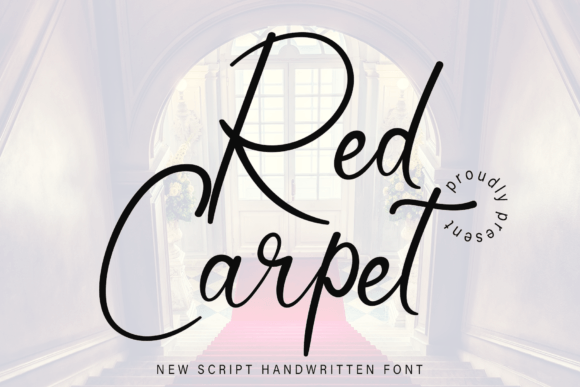
Journey into the realm of exquisite typography with Red Carpet Font, the script font designed to ignite romance and leave a lasting impression. Picture this: handwritten love letters scribed with the elegance of a bygone era, where every curve and stroke whisper sweet nothings. Red Carpet Font is your creative soulmate, guiding you to craft enchanting wedding invitations, heartfelt thank you cards, and captivating quotes that speak volumes.
With Red Carpet Font, your designs will tread a red carpet of sophistication. Its graceful lines flow like a melody, capturing the essence of timeless beauty. Logos and business cards adorned with this font exude a sense of professionalism and charm. Whether you're an artist, designer, or simply someone who appreciates the art of handwritten expression, Red Carpet Font will elevate your creations to new heights.
Love is in the air, and Red Carpet Font is your secret weapon for crafting Valentine's Day messages that ignite hearts. Its elegant curves and flowing strokes embody the essence of romance, transforming ordinary words into expressions of adoration. Let your designs bloom with the beauty of love, adorned with the captivating allure of Red Carpet Font.